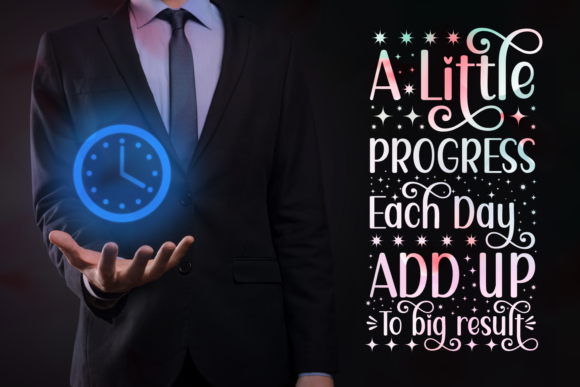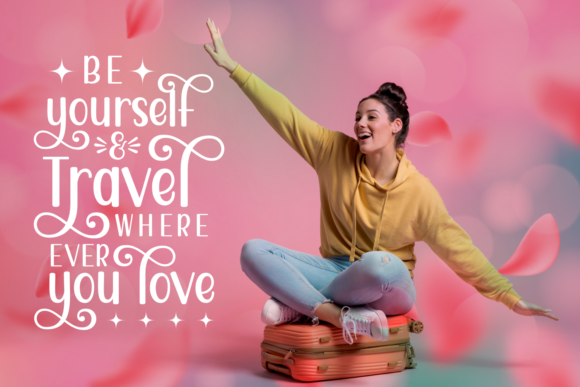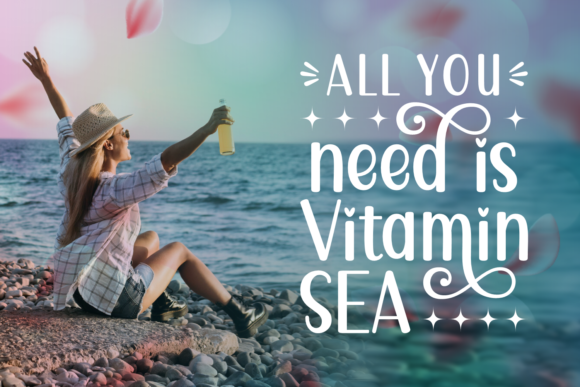
Gryce Font
About Gryce Font
Gryce is a simple, joyful, and ravishing handwritten font that brings a delightful touch to any design. With its adaptable style, Gryce is perfect for a wide range of formal or informal projects, adding a personalized and charming feel.
When it comes to wedding invitations, Gryce adds a touch of elegance and joy. Its flowing and well-balanced letterforms create a warm and inviting atmosphere, setting the tone for a memorable celebration. Whether you’re planning a traditional or modern wedding, Gryce adapts effortlessly to create beautiful and personalized invitations.
Expressing gratitude becomes even more special with Gryce. Whether you’re designing thank you cards or personalized notes, this font adds a sense of joy and warmth. Its simplicity and handwritten charm convey genuine appreciation, making each message heartfelt and memorable.
For greeting cards, Gryce infuses a sense of cheerfulness and playfulness. Whether it’s for birthdays, holidays, or any special occasion, this font brings the right balance of simplicity and beauty. Its joyful strokes and genuine style make each card a delightful expression of love and well wishes.
When it comes to logos, Gryce adds a unique and personalized touch. Its simplicity and adaptability make it suitable for various industries, from creative and artsy businesses to playful and joyful brands. Gryce helps to create a visual identity that stands out and resonates with the audience.
In addition to these specific applications, Gryce can be used for a wide range of designs that require a personalized style. From social media graphics to product packaging, Gryce brings a sense of joy and authenticity to every project. Its versatility and timeless appeal make it a font that can be used in various design contexts.
Overall, Gryce is a font that exudes simplicity, joy, and ravishing charm. It is perfect for both formal and informal designs, adding a personal touch to wedding invitations, thank you cards, greeting cards, logos, and more. With Gryce, you can create designs that are delightful, memorable, and filled with genuine warmth.